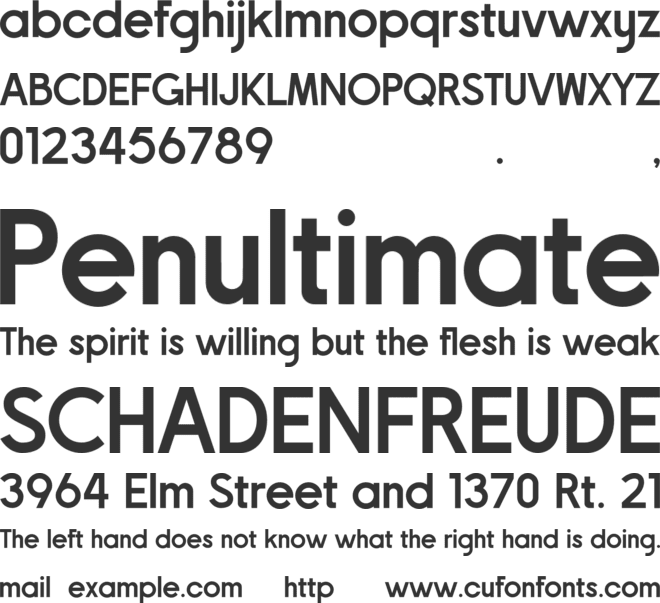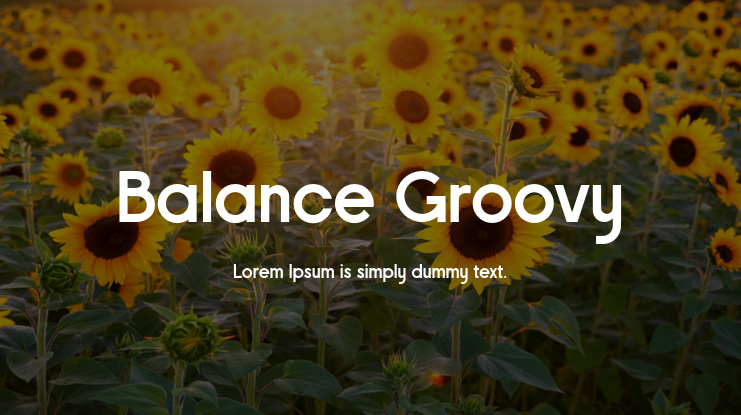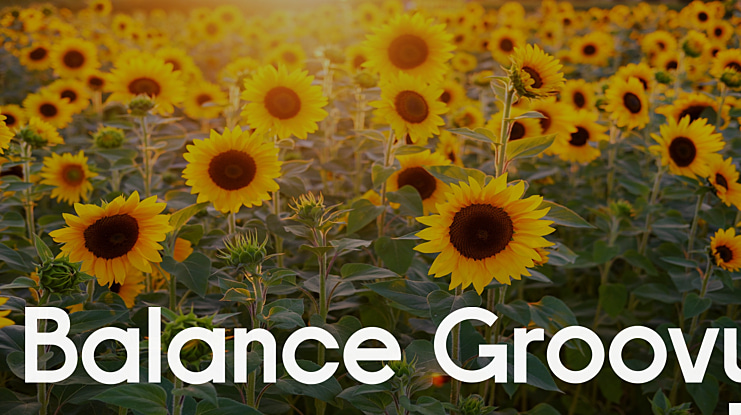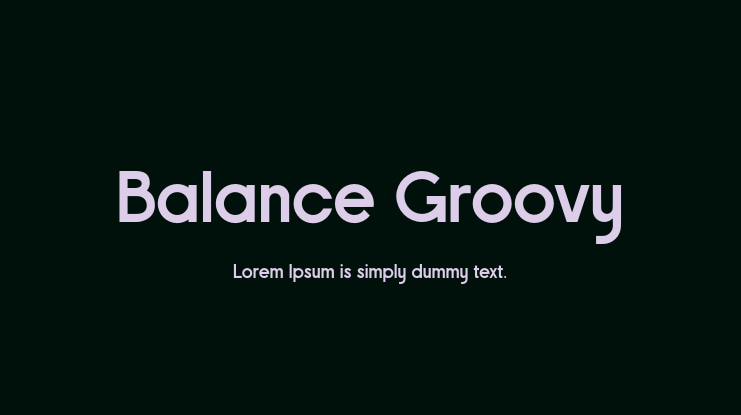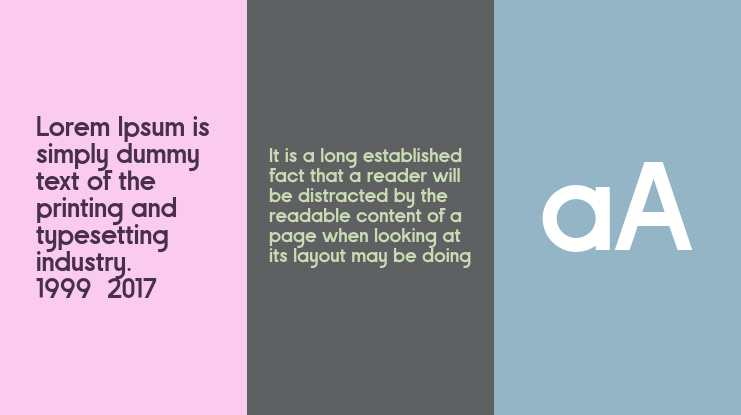
Balance Groovy Font Family
Rian Dryana
BALANCE GROOVY is a font inspired by the balance of a dynamic and static mindset, which creates harmony in thinking. This font I created is meaningful & very versatile, it goes well with various designs, elevating them to the highest level. Add this font to your favorite creative ideas and see how it turns out!